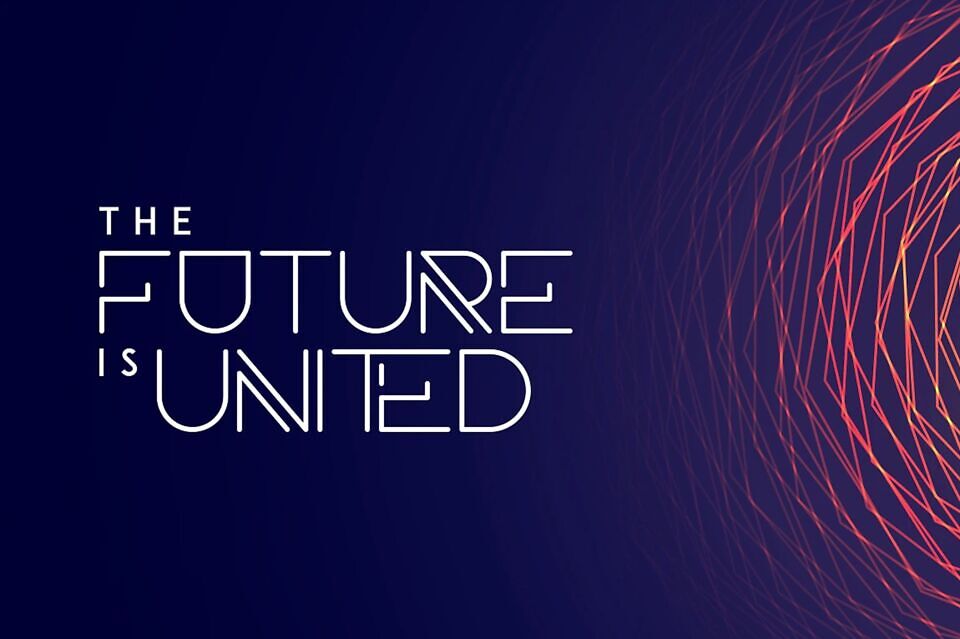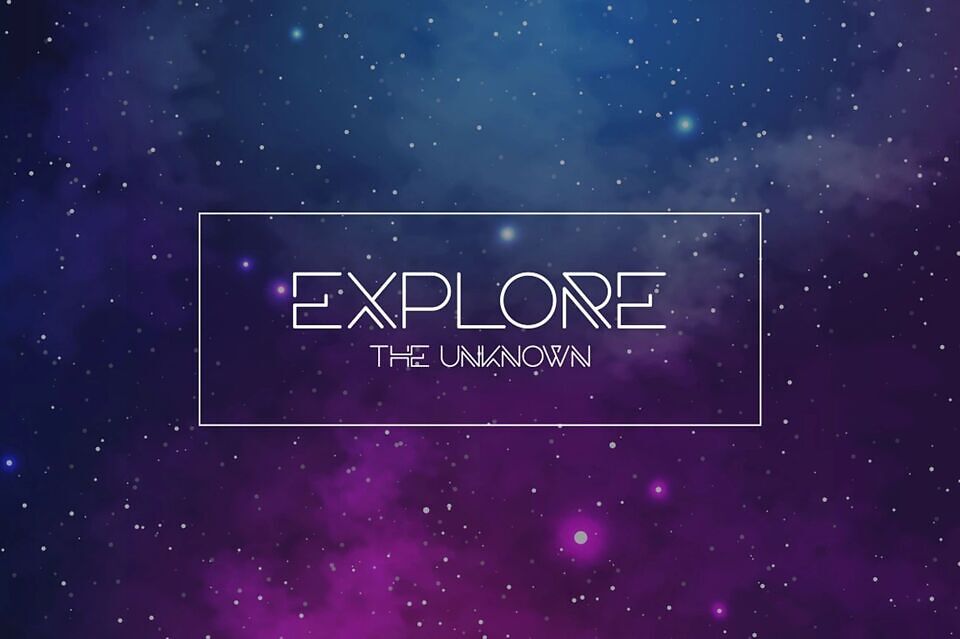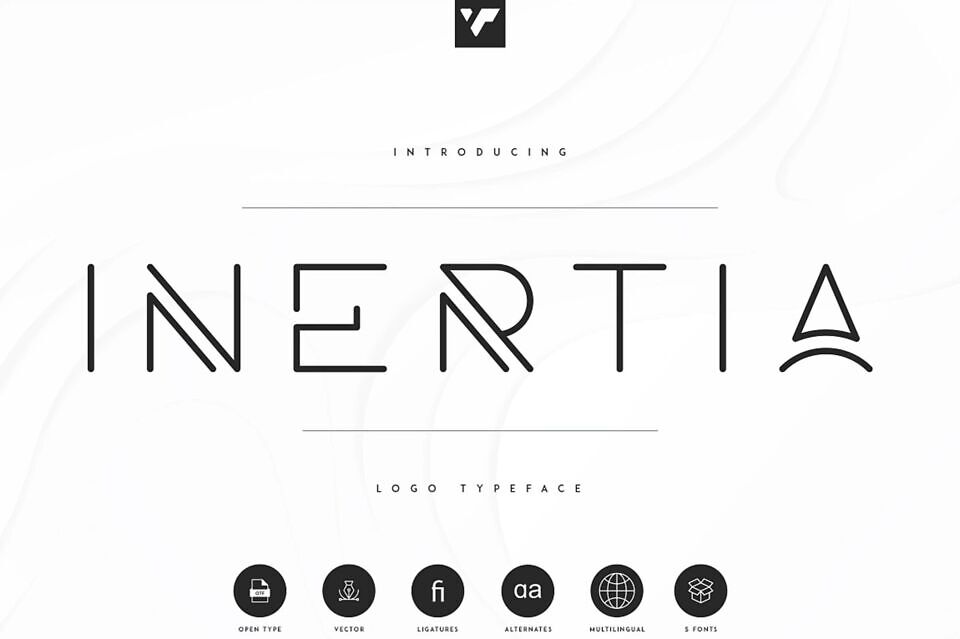
Inertia Font
Inertia is a futuristic, logo typeface loaded with alternate glyphs, ligatures, 5 weights and multilingual support. It’s a very versatile font that works great in large and small sizes.
Inertia is perfect for branding projects, home-ware designs, product packaging, magazine headers – or simply as a stylish text overlay to any background image.